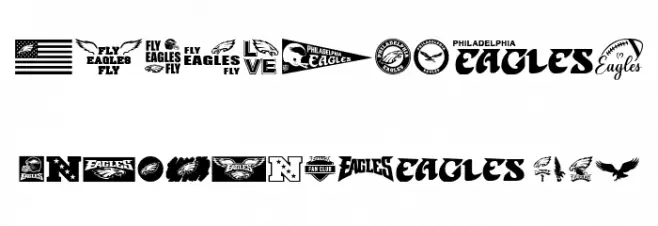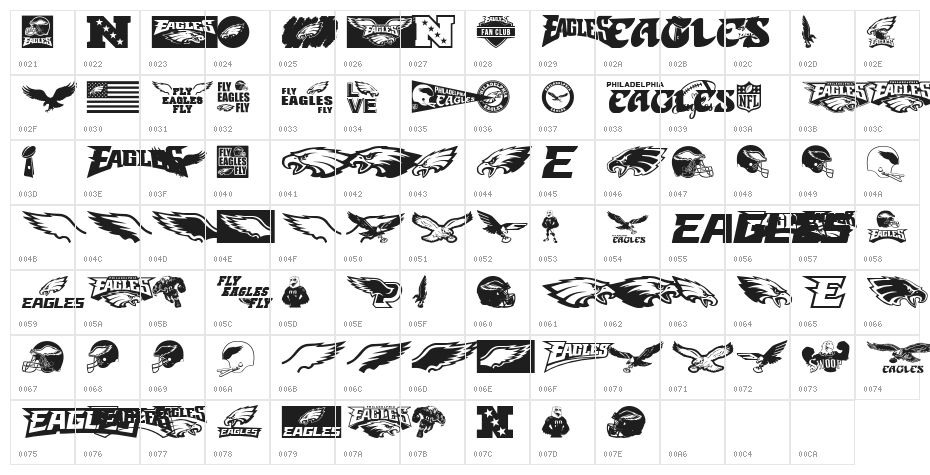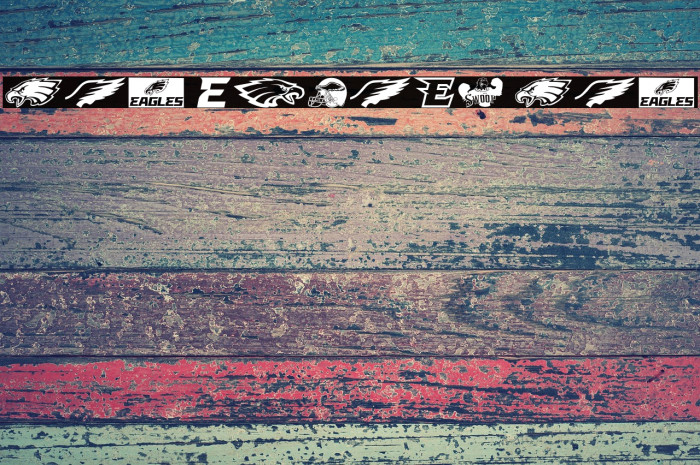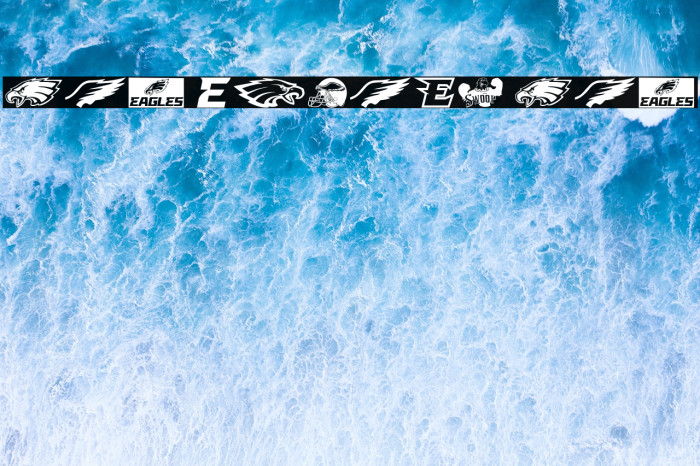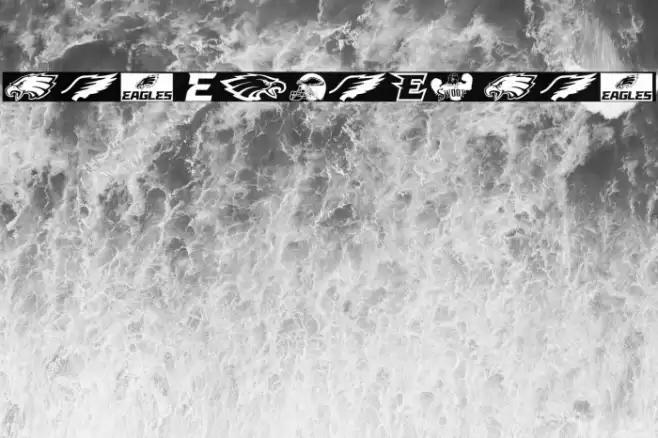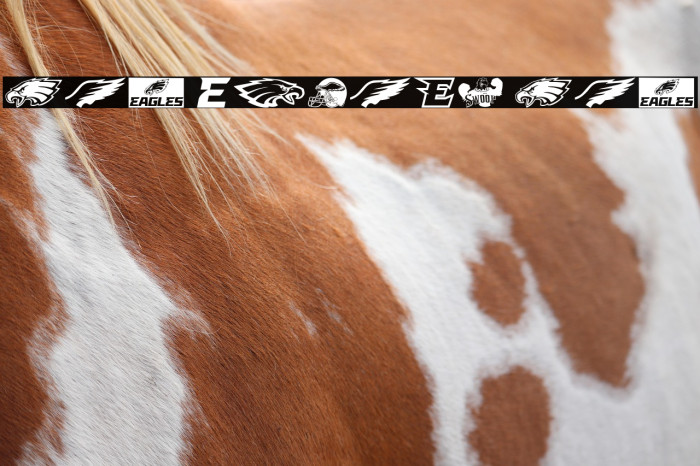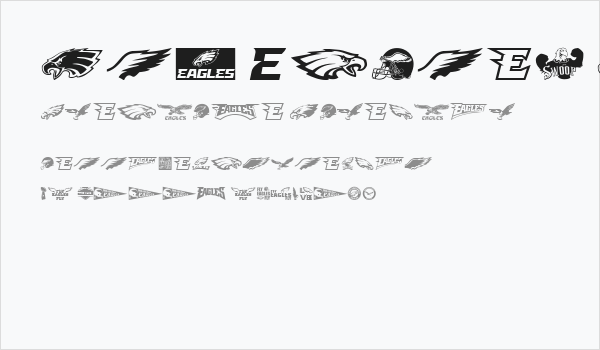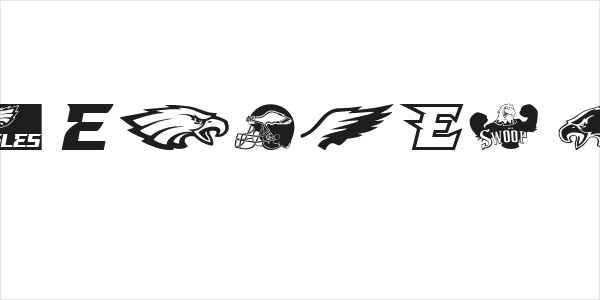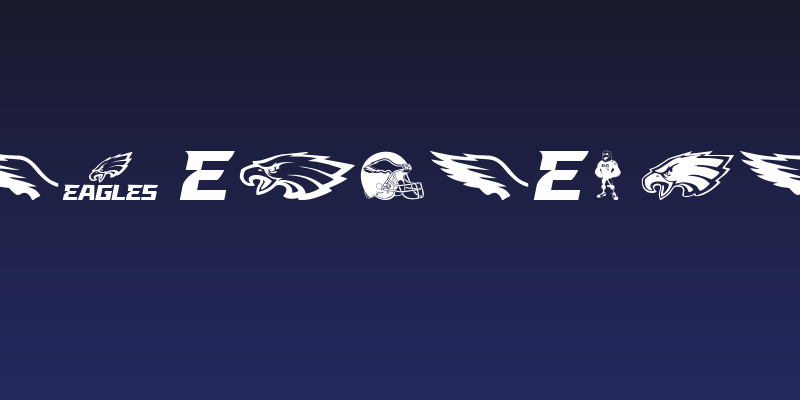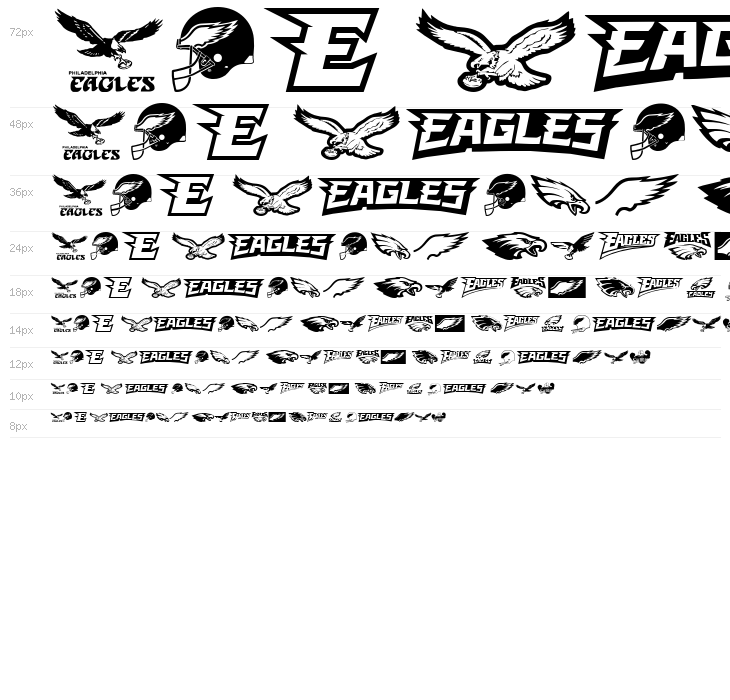
Fly Eagles Fly Font
Fly Eagles Fly Description
A decorative display font featuring bold, blocky letters with sharp angles and stylized serifs, interspersed with various sports-themed icons such as eagles, helmets, and footballs. The letterforms are highly stylized and designed to evoke energy and movement, suitable for sports branding.
| Overall Style | Decorative, Sports, Energetic |
| Use Case | Logos, Headlines, Posters, Merchandise |
| Proposed Projects | Sports team branding, event posters, fan merchandise, themed banners. |